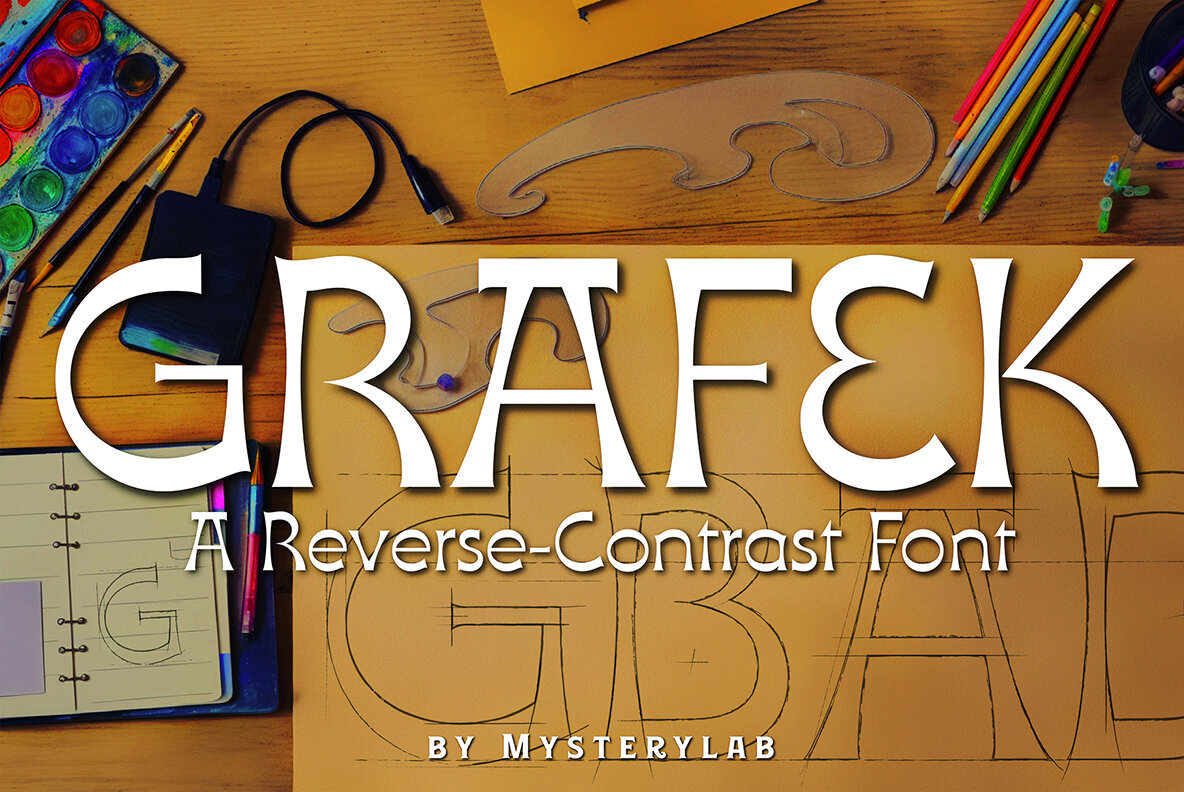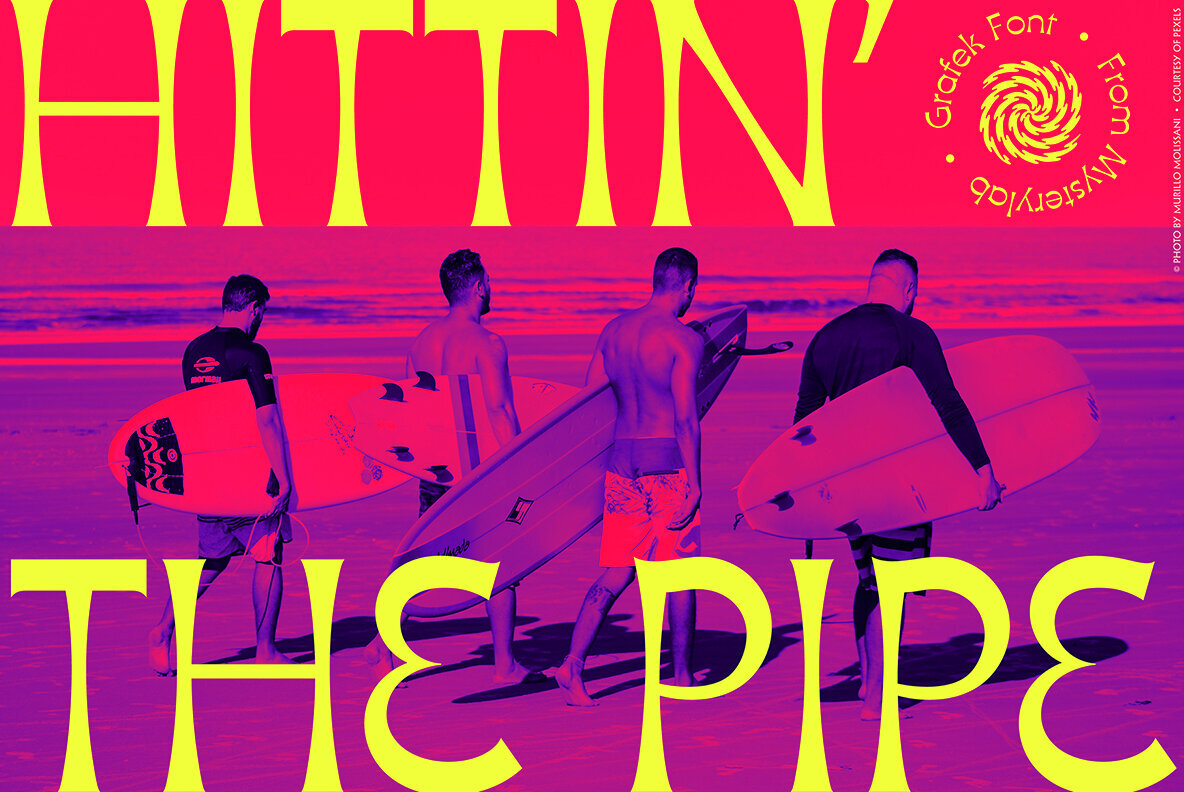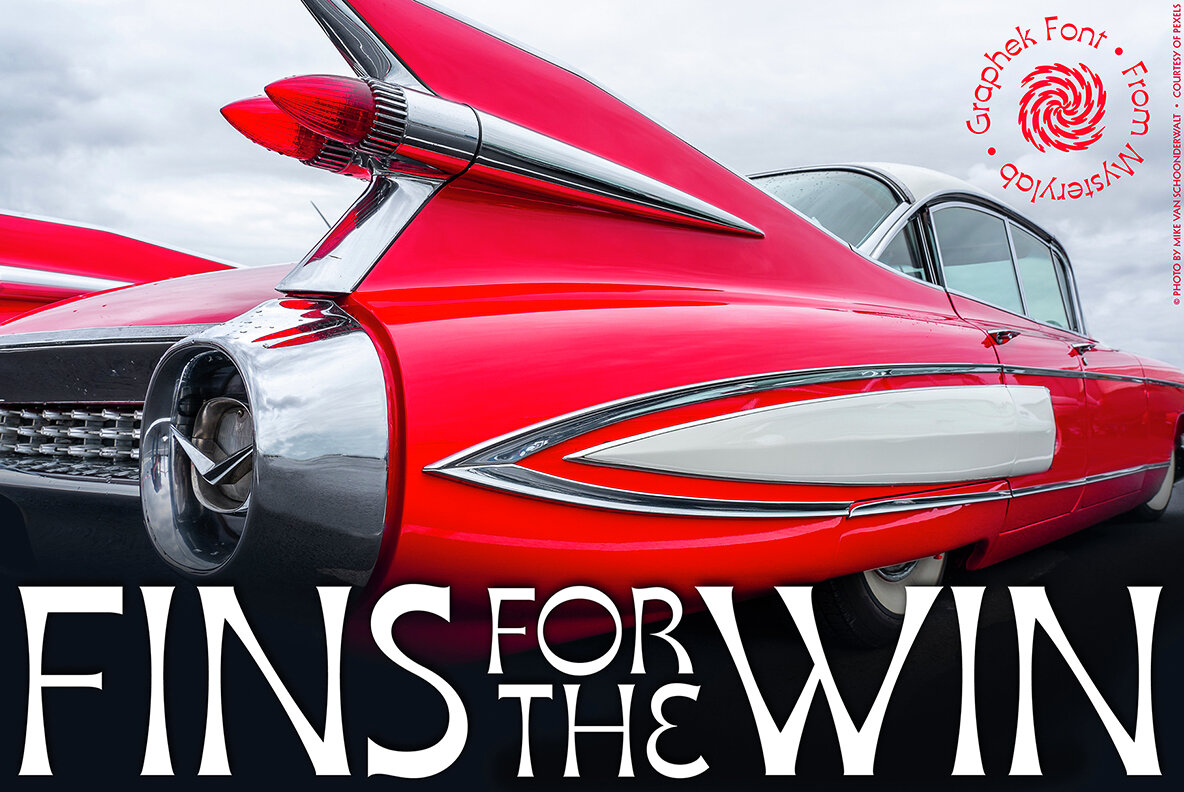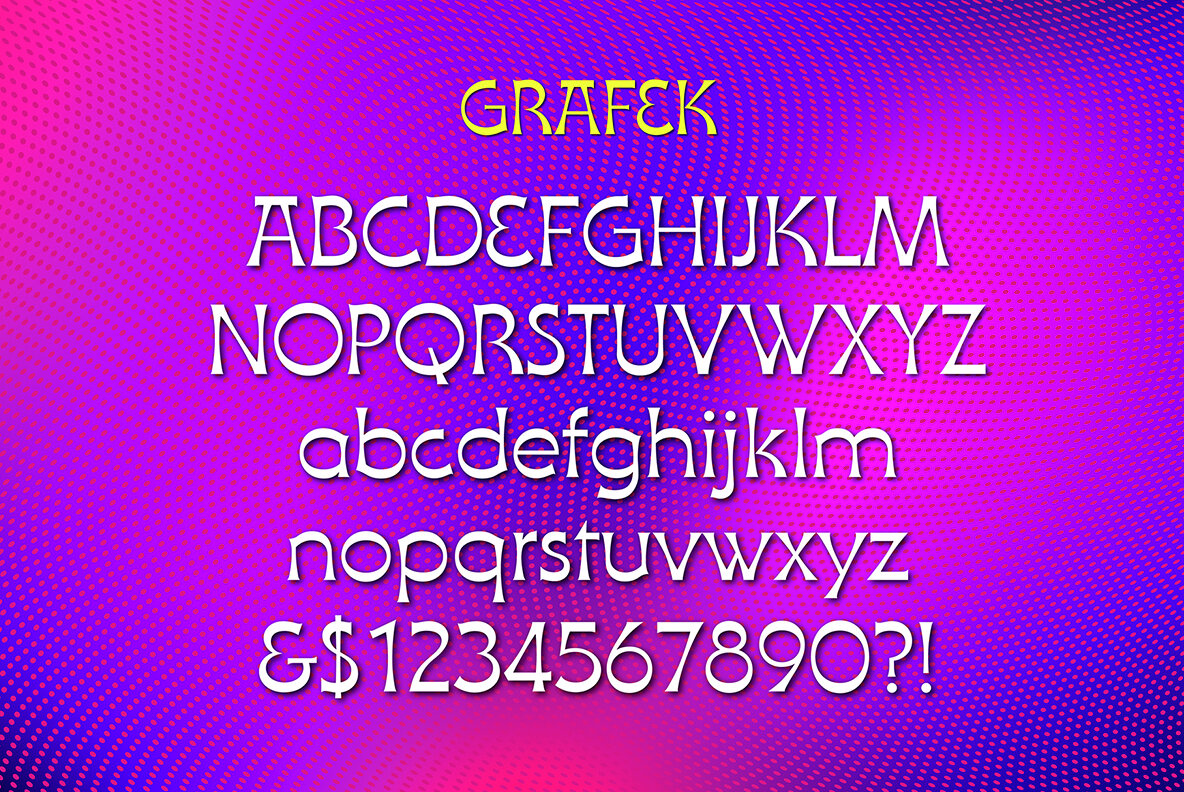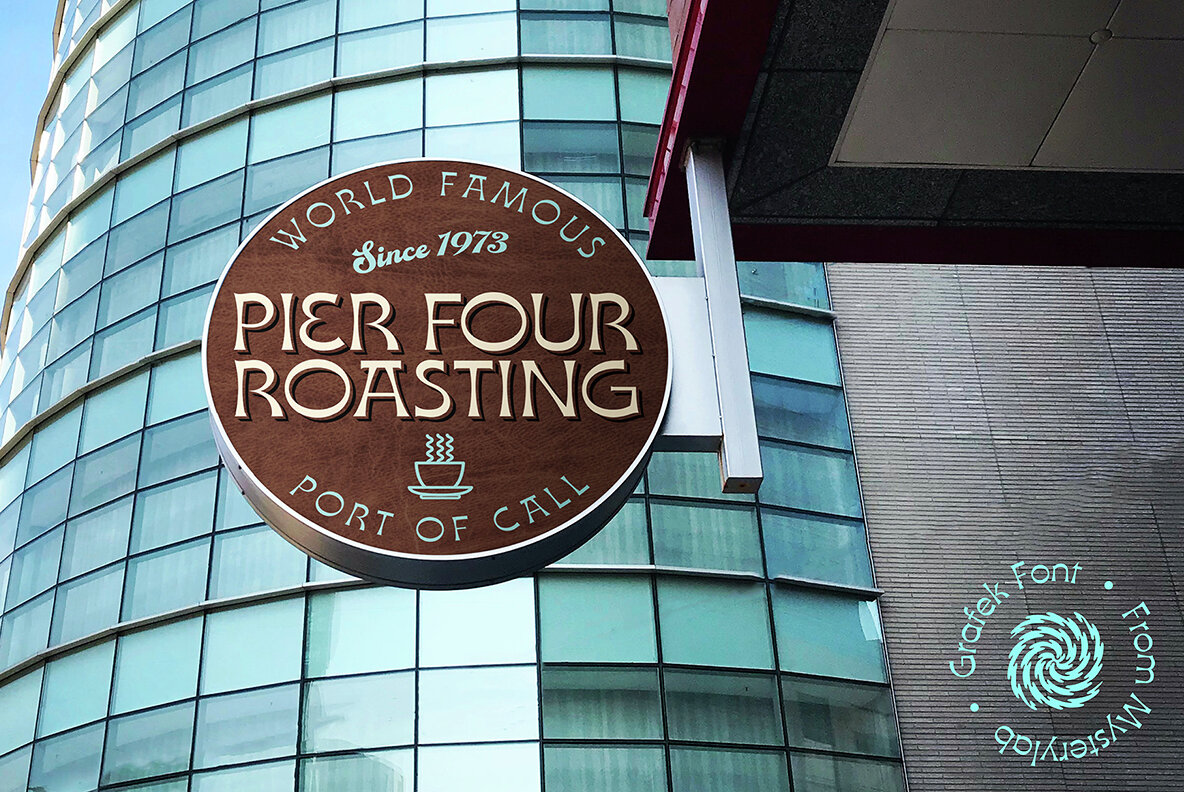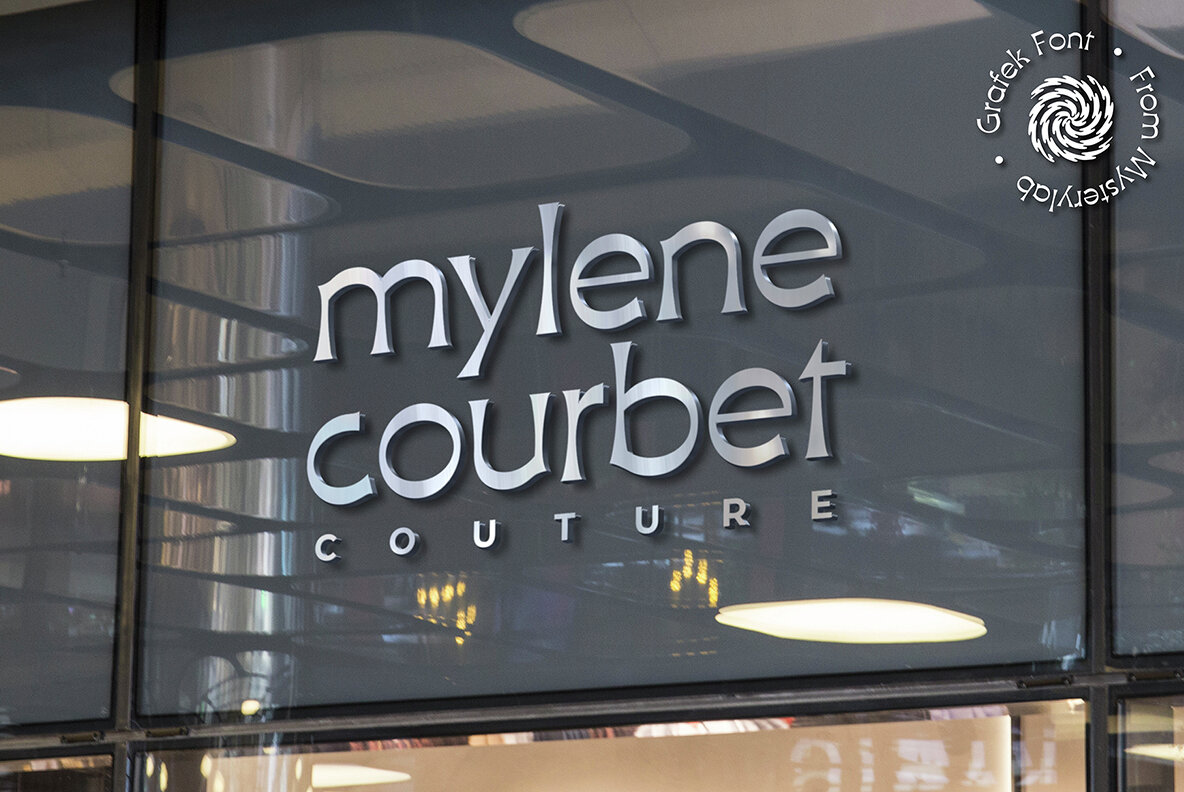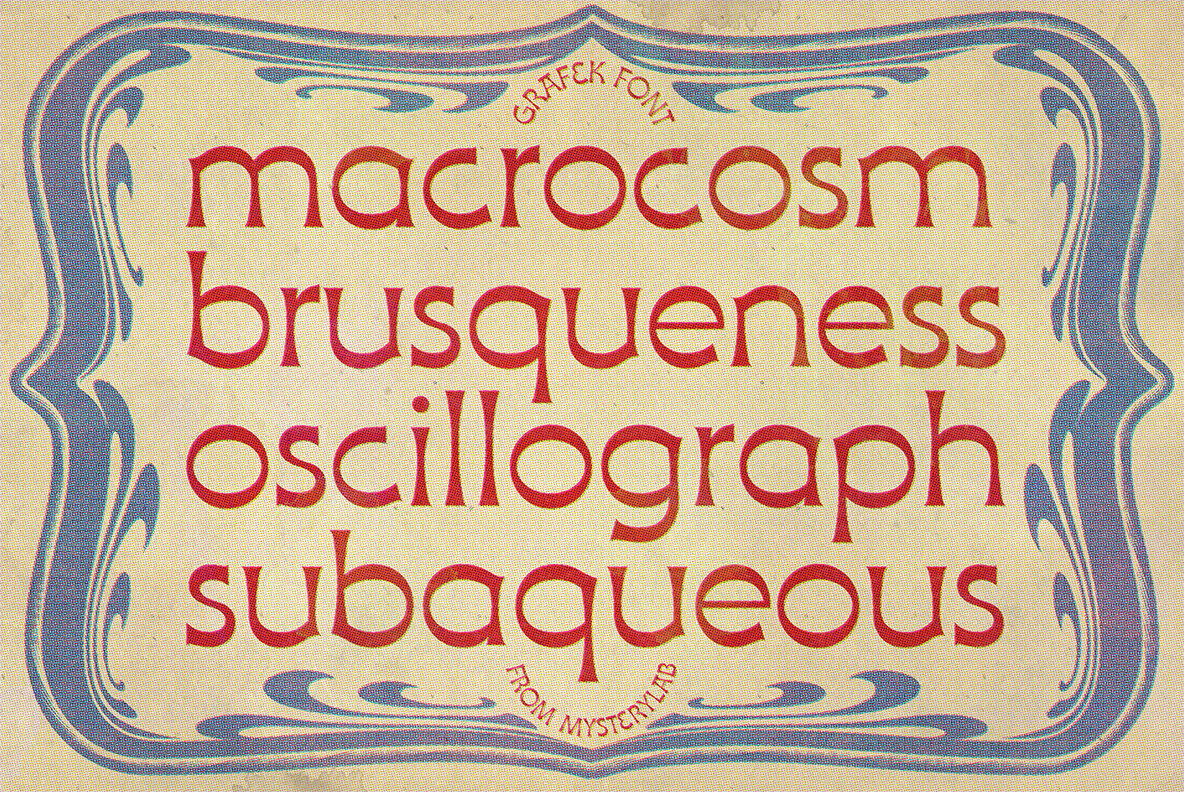
Grafek Font
Grafek Regular
Grafek is a unique reverse-contrast, flare-serif font with tapered vertical strokes and heavier horizontals on the top and bottom. This typeface is loaded with individual character, bolstering its excellent legibility with a moderately extended width. It’s a strong choice for large headlines, web banner graphics, and branding/logo usages. It’s got a high-end and elegant flair on shorter words, especially when choosing an all lowercase lettering design, for example on a logo treatment. It has a whiff of a nautical, antique map vibe, and even conjures up a hint of Oceania and Tiki-style graphics. Grafek will prove to be a great choice on book and magazine titles, and its width lends itself easily to wide mega-scaled outdoor marquee graphics and billboards.
Mott Jordan studied studio art and design at U.C. Santa Cruz, and was a self-employed sign painter and later a full-time graphic artist at a local weekly. His type design career began in earnest under Ilene Strizver at International Typographic Corporation in the mid-1990s, releasing two typefaces (ITC Verkehr...